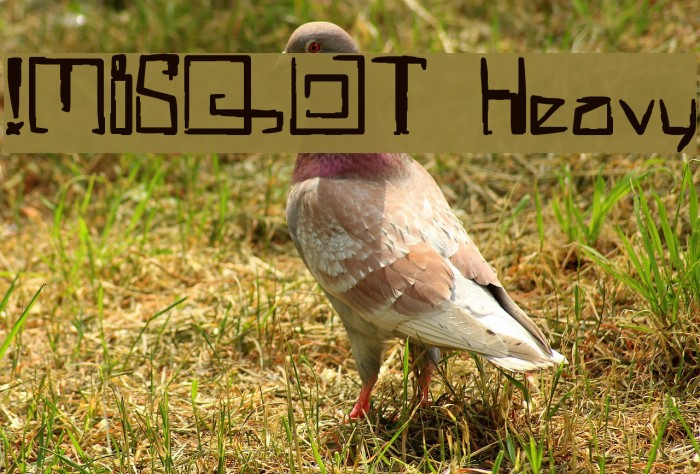
!MISQOT Heavy Font
This font features a bold and heavy design with a unique, hand-drawn appearance. The characters are constructed with thick strokes and exhibit a slightly irregular, geometric style that gives them a distinct, edgy look. The uppercase letters are blocky and angular, while the lowercase letters maintain a consistent style with slightly more fluidity. Numbers and special characters follow the same bold and heavy aesthetic, ensuring uniformity across all glyphs. The font's overall design is striking and modern, making it suitable for projects that require a strong visual impact.
A bold, heavy, hand-drawn font with a geometric and edgy style.
- Proposed Projects: Ideal for posters, album covers, branding projects, and any design requiring a bold statement.